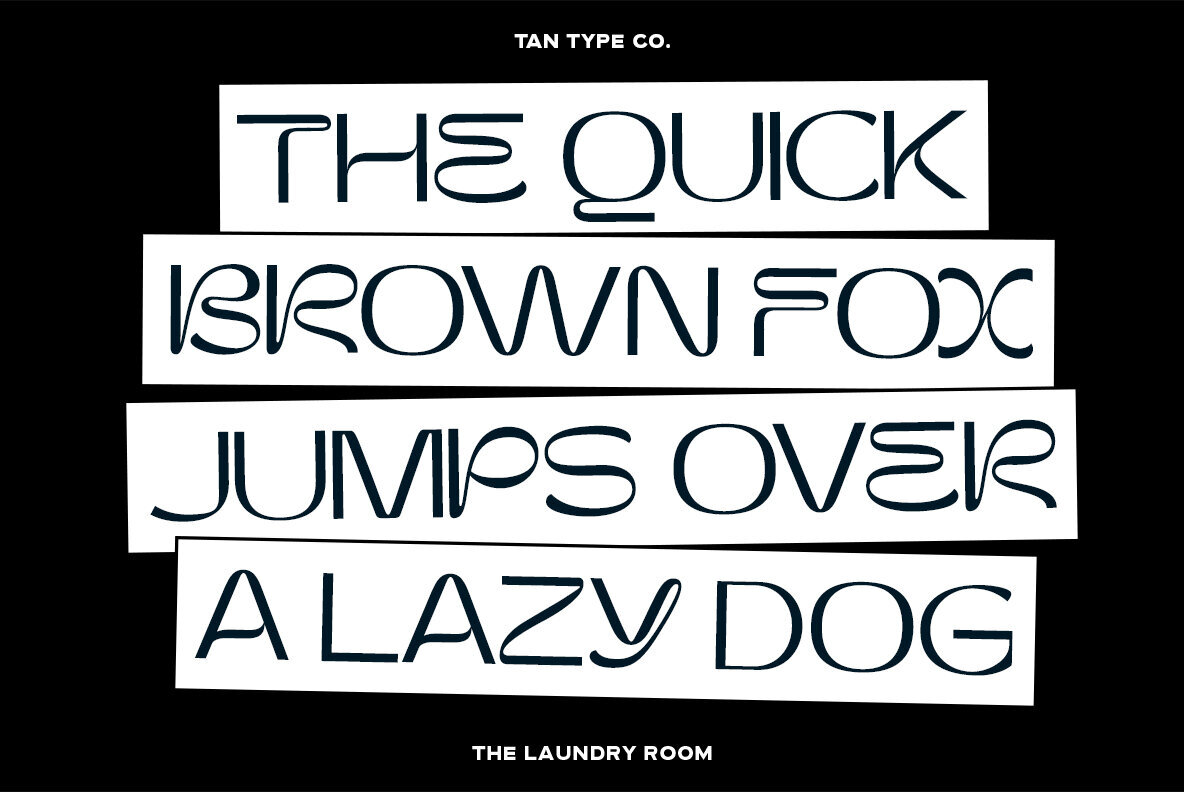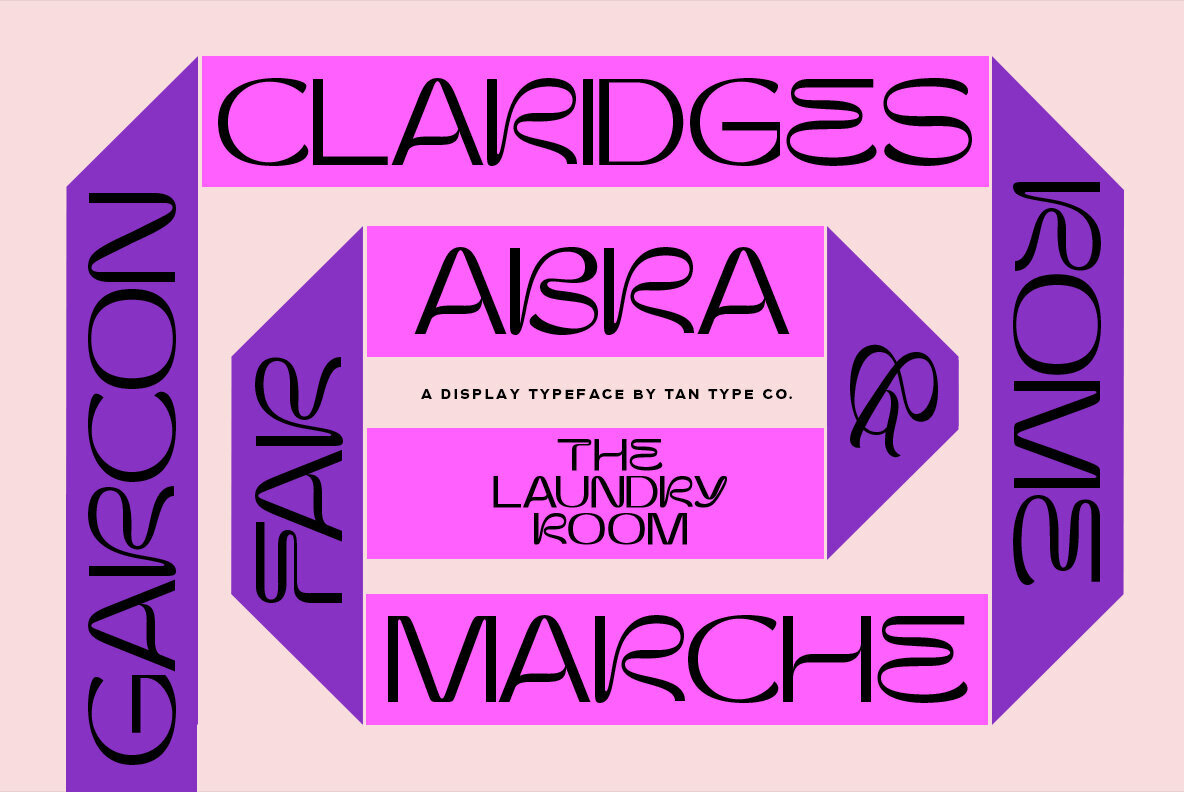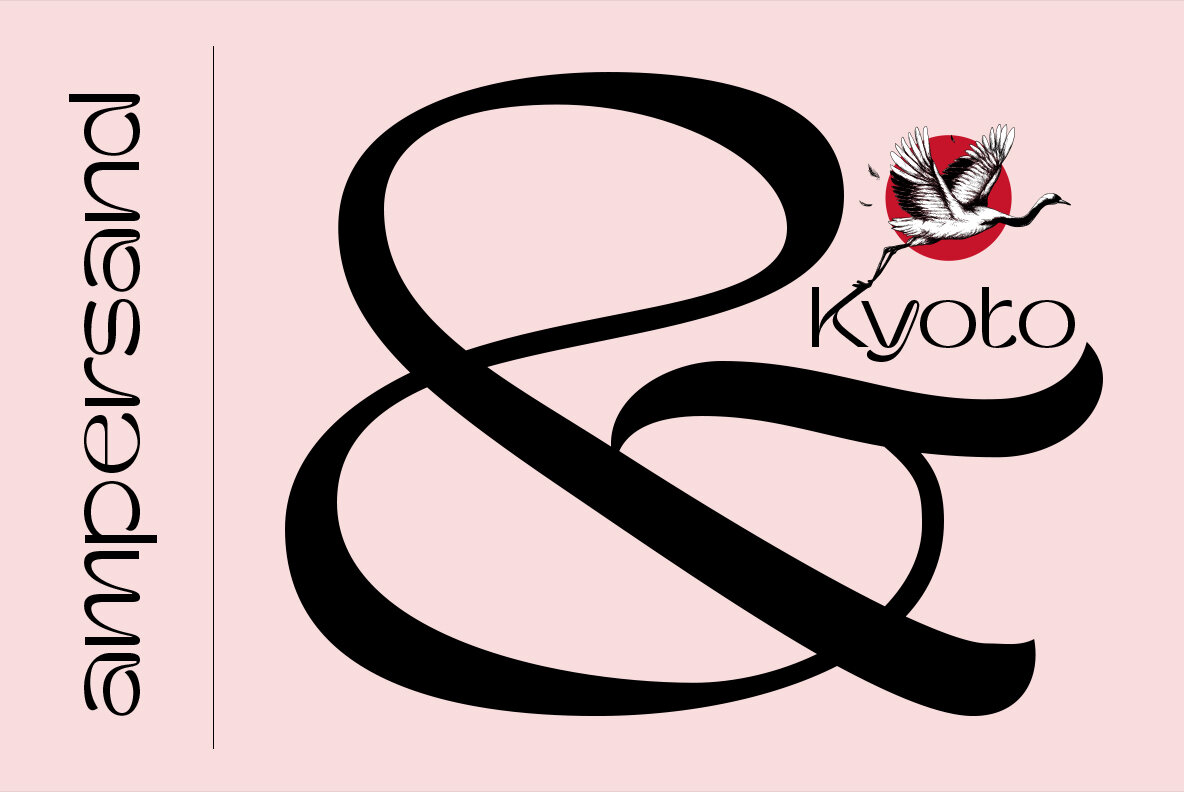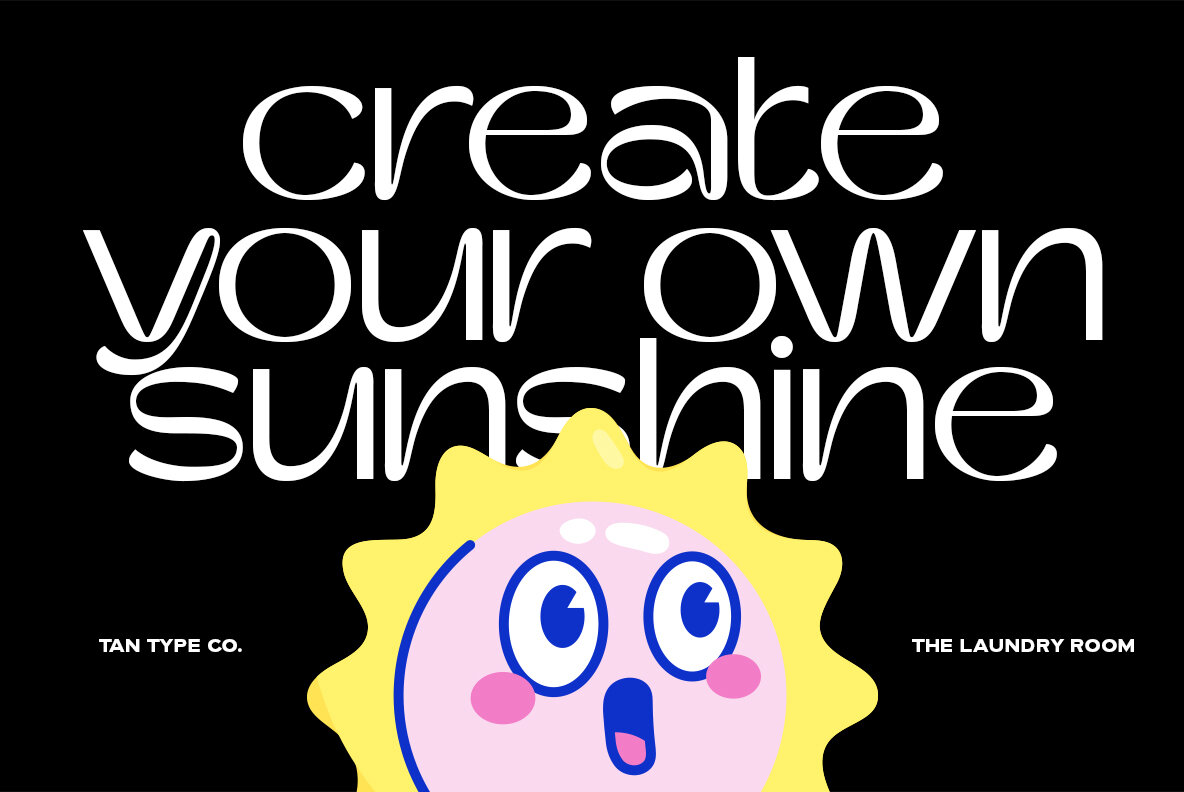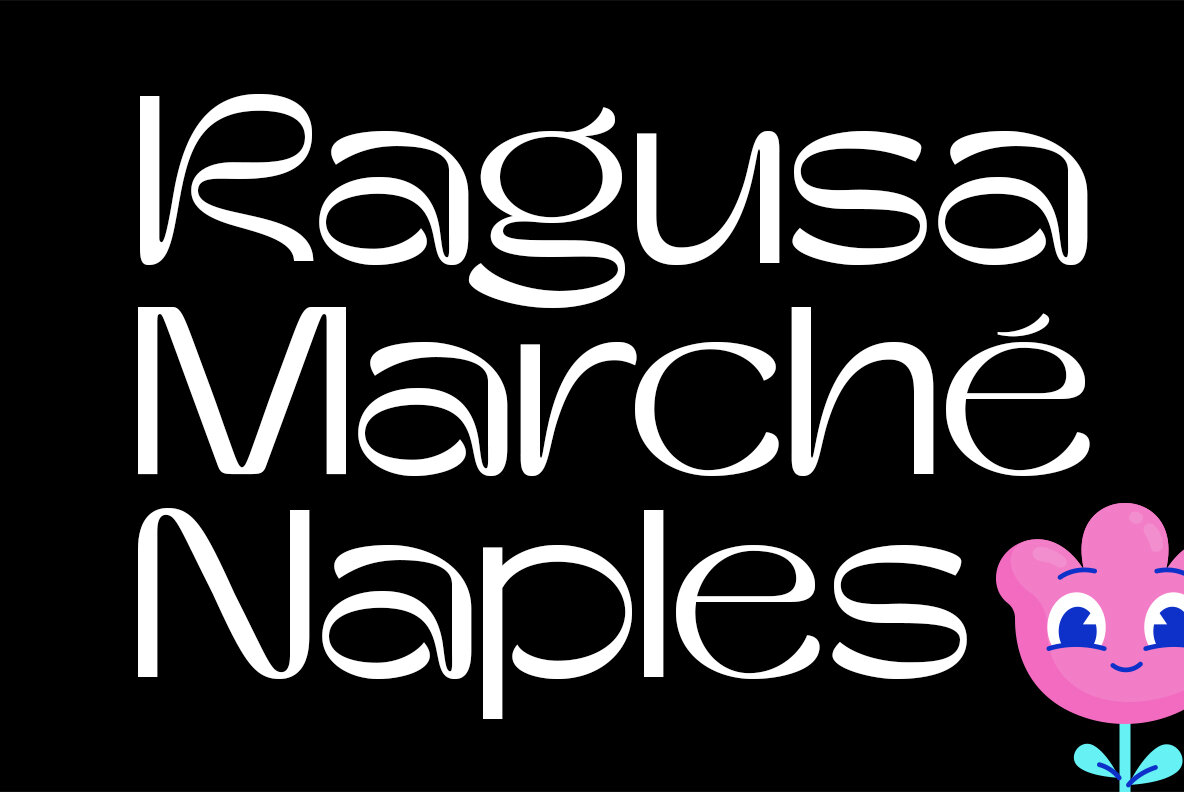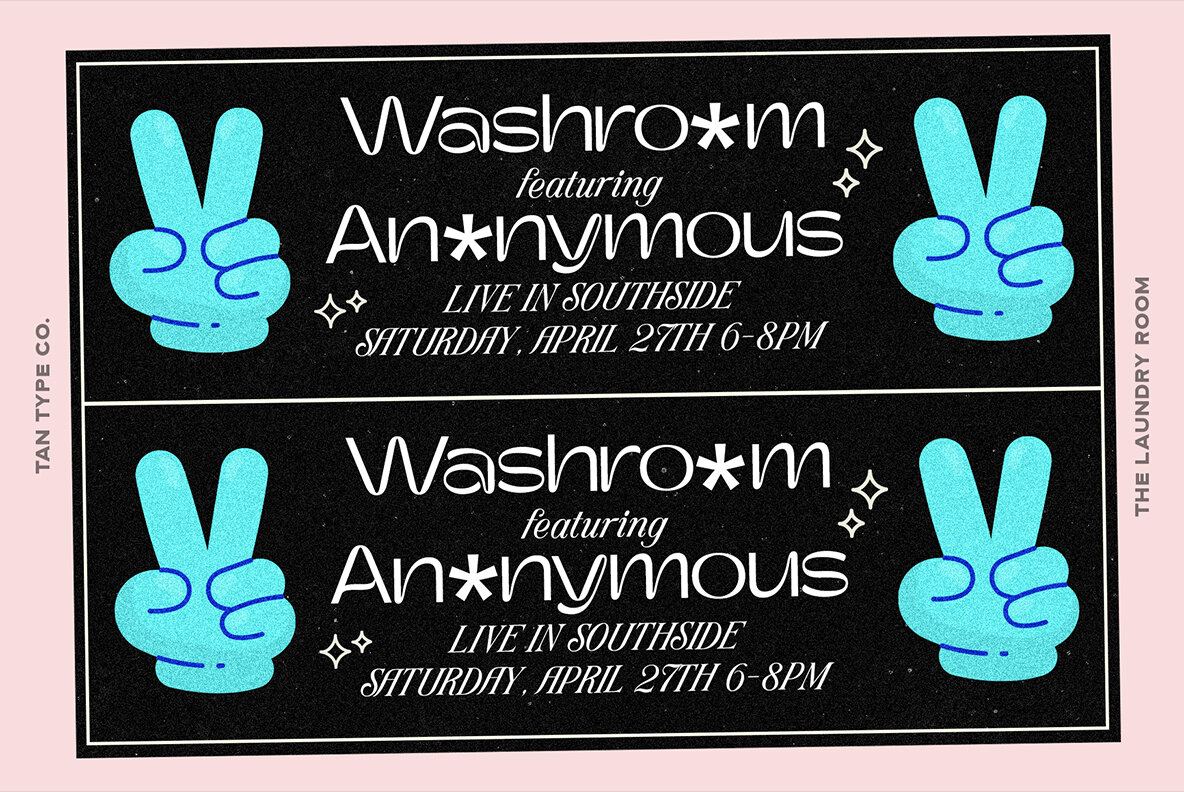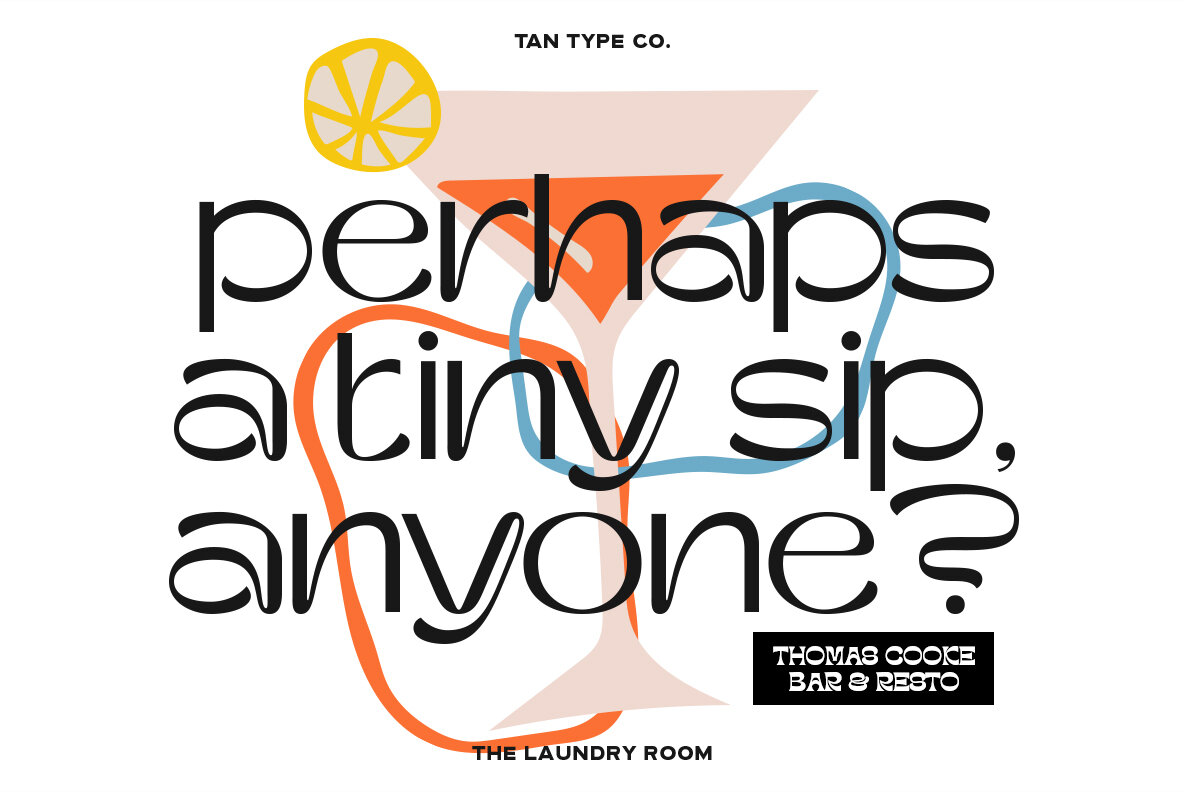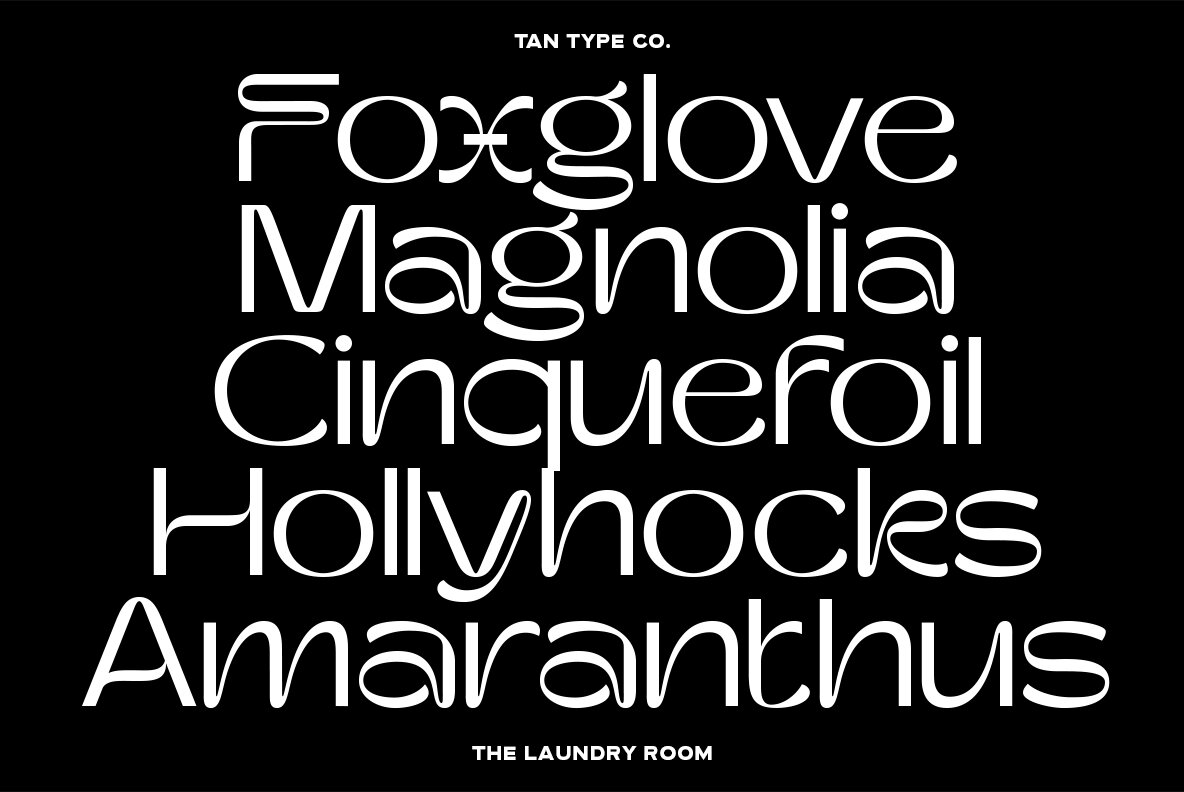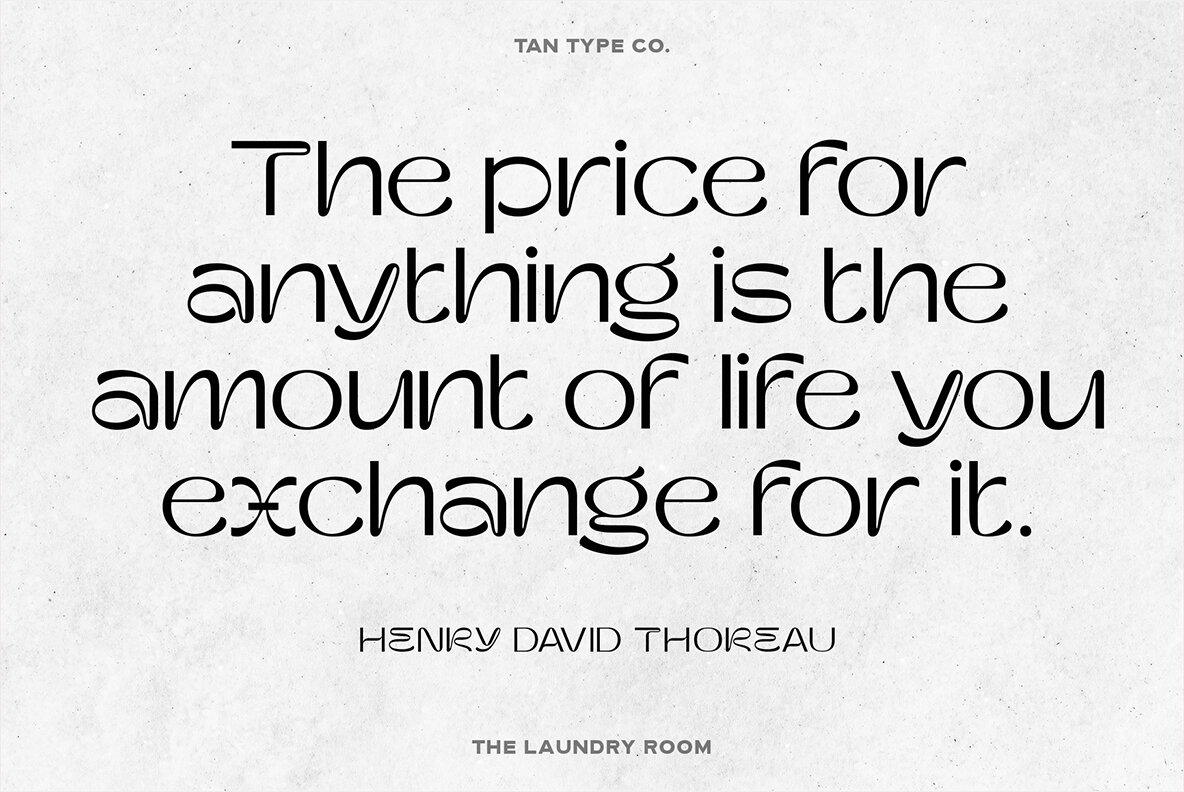
TAN THE LAUNDRY ROOM Font
TAN THE LAUNDRY ROOM Regular
TAN THE LAUNDRY ROOM by TanType Co. is a unique serif display font that balances whimsical charm with clear readability. It captures a playful essence while remaining structured, perfect for projects requiring a fresh yet composed look. This font integrates smoothly with most design software. It's important to confirm compatibility with OpenType features to enjoy all its ligatures. While Canva users can incorporate TAN THE LAUNDRY ROOM, they should note that the platform does not support advanced OpenType functionalities like special characters.TAN THE LAUNDRY ROOM: Quirky Serif Display Font